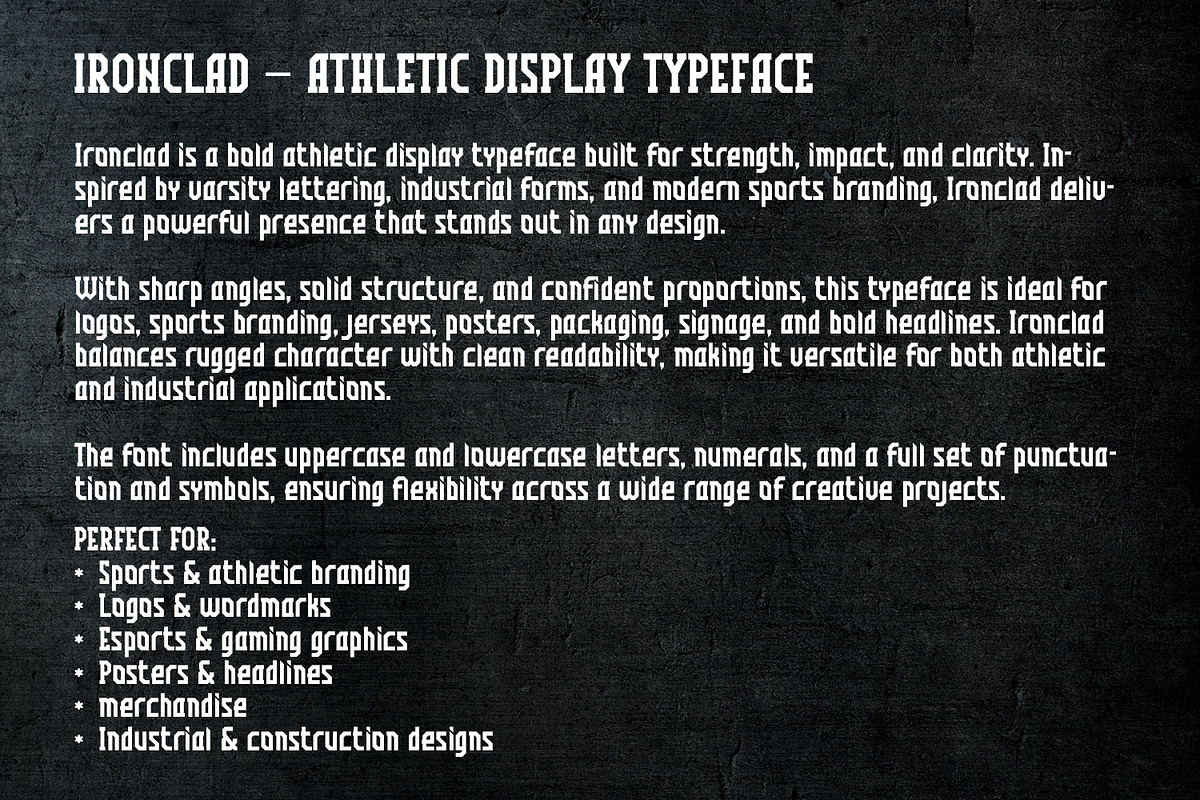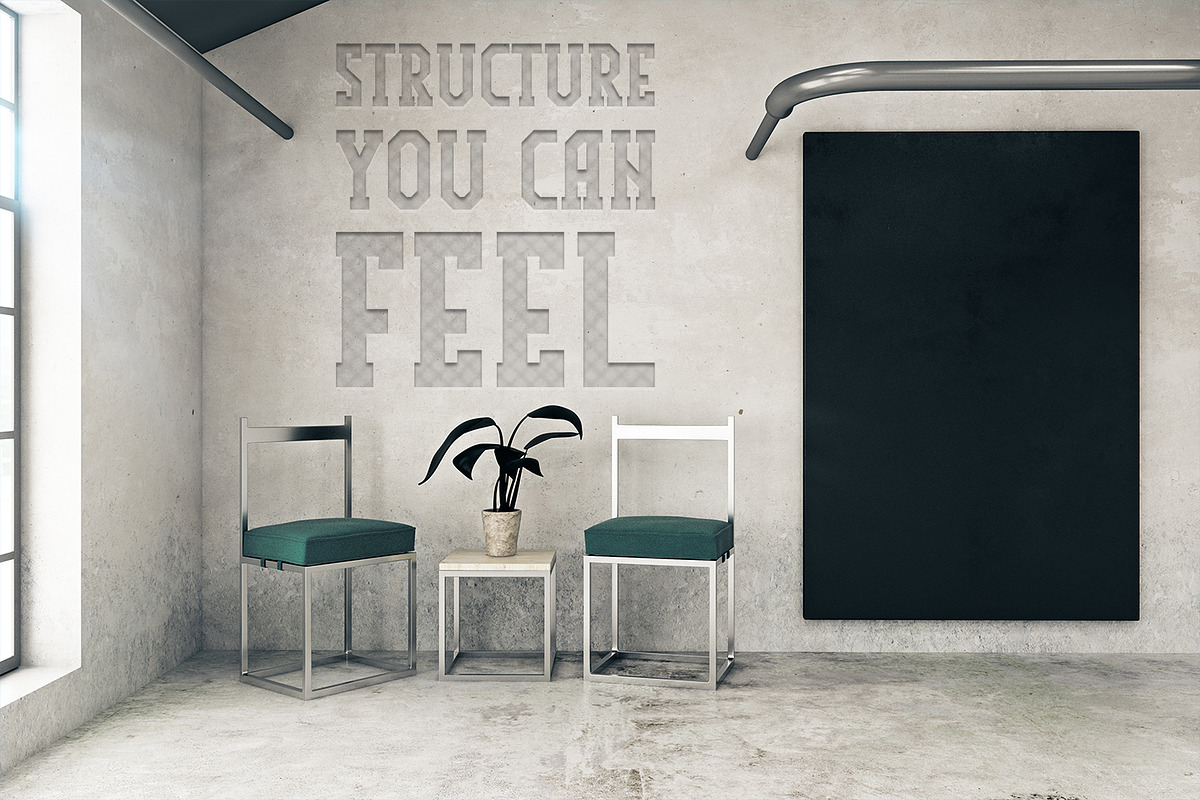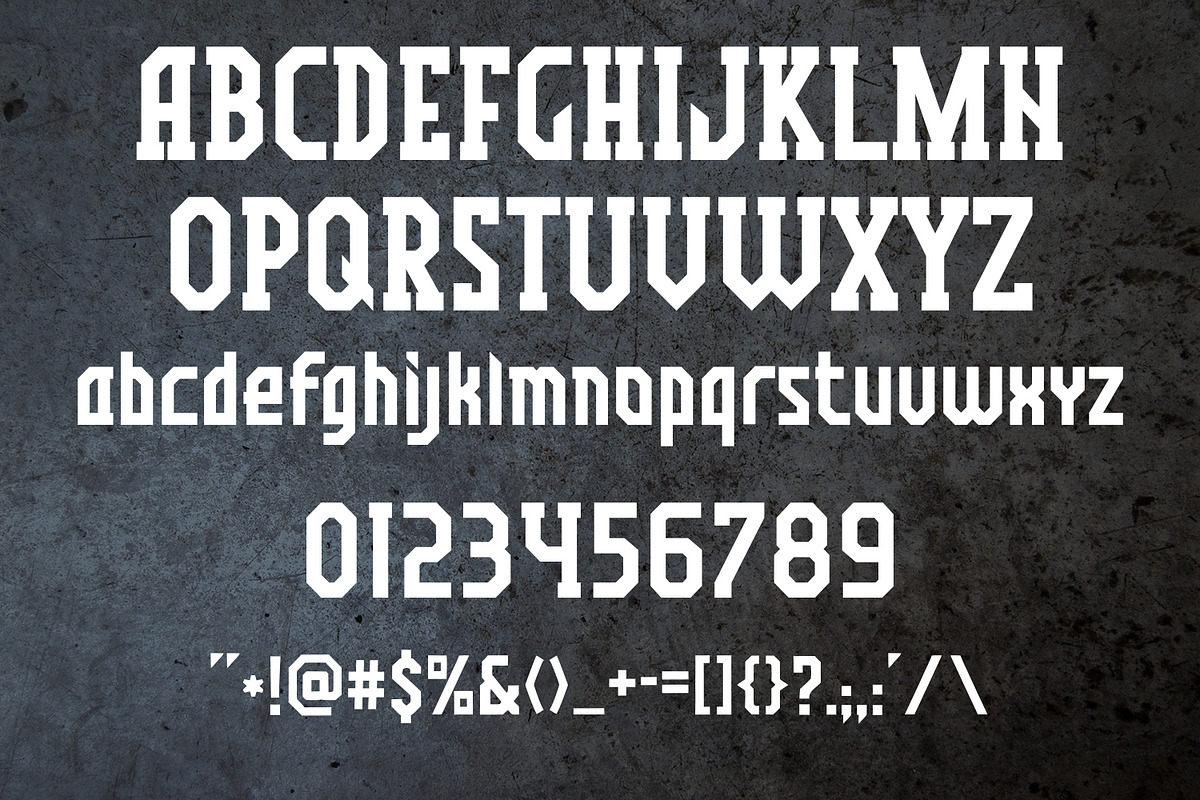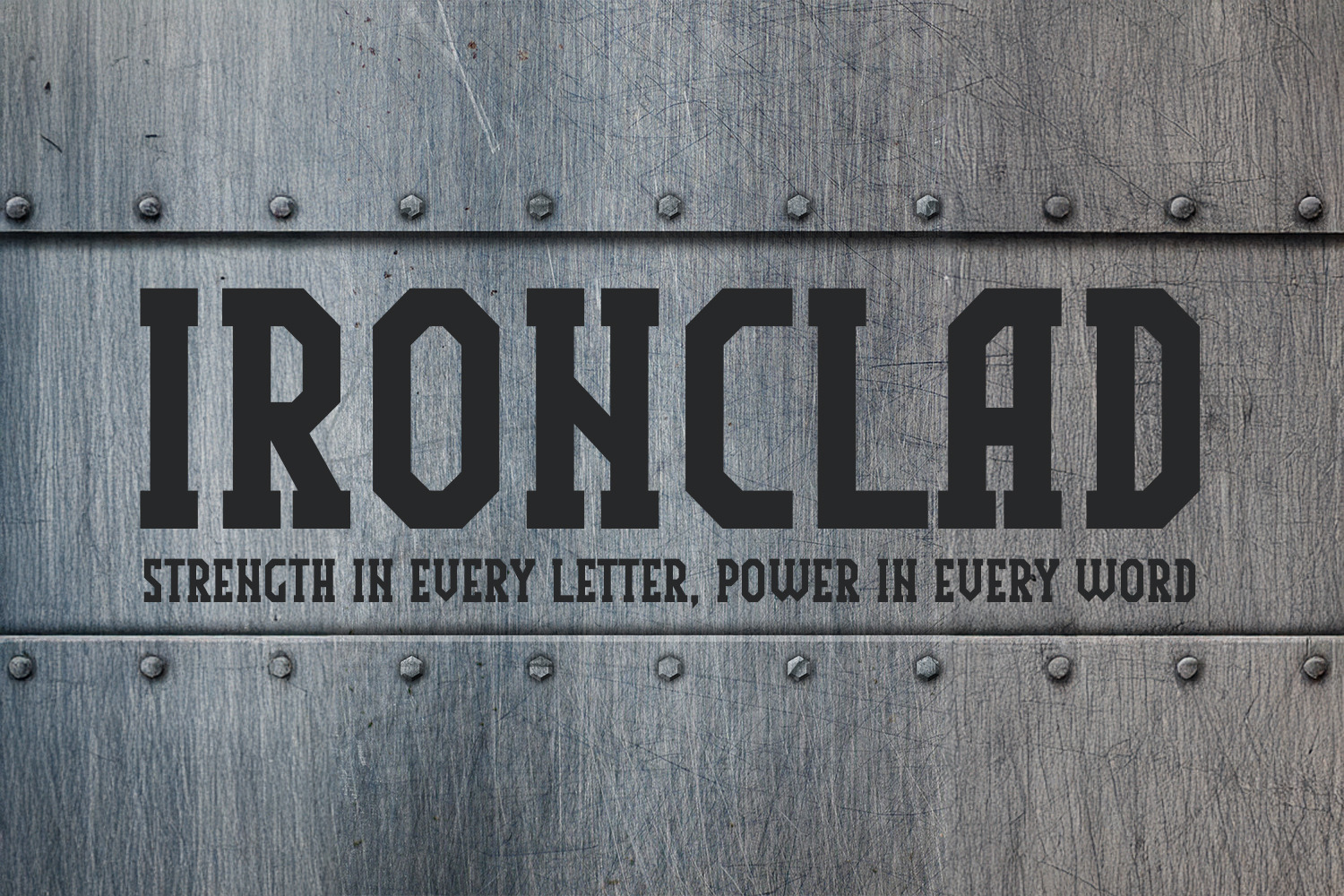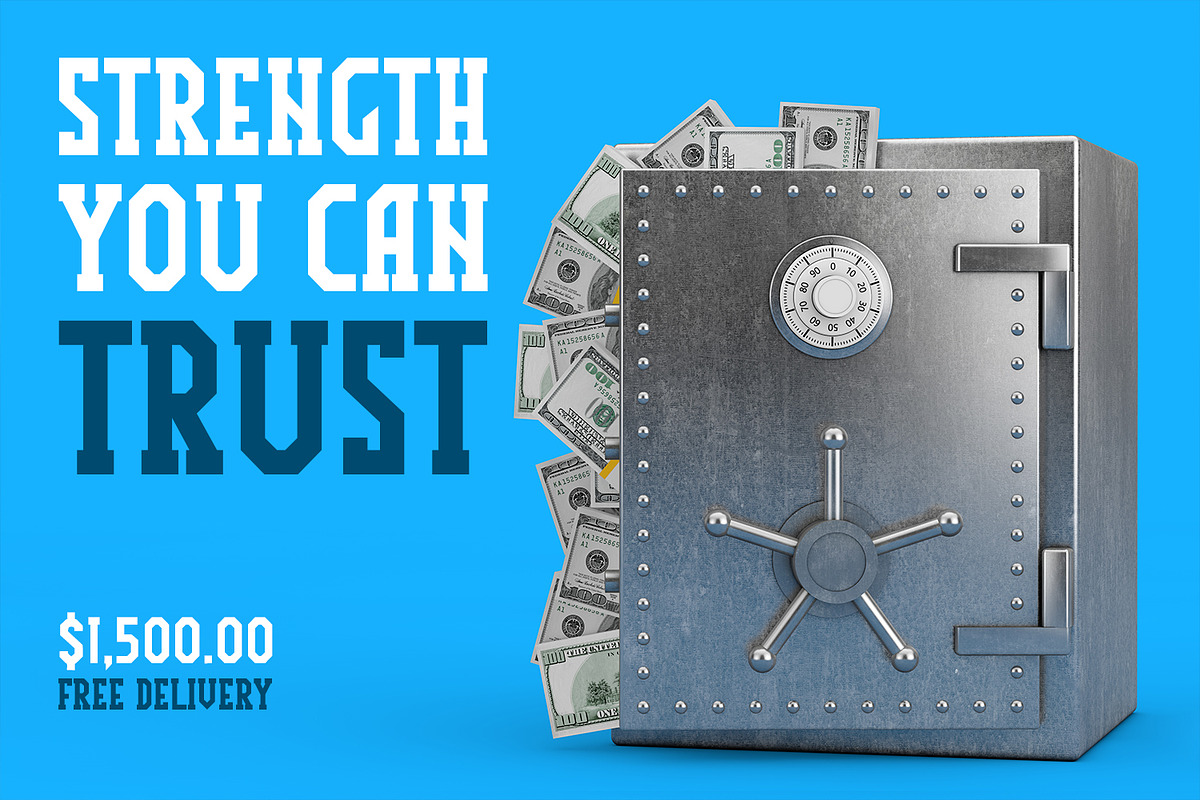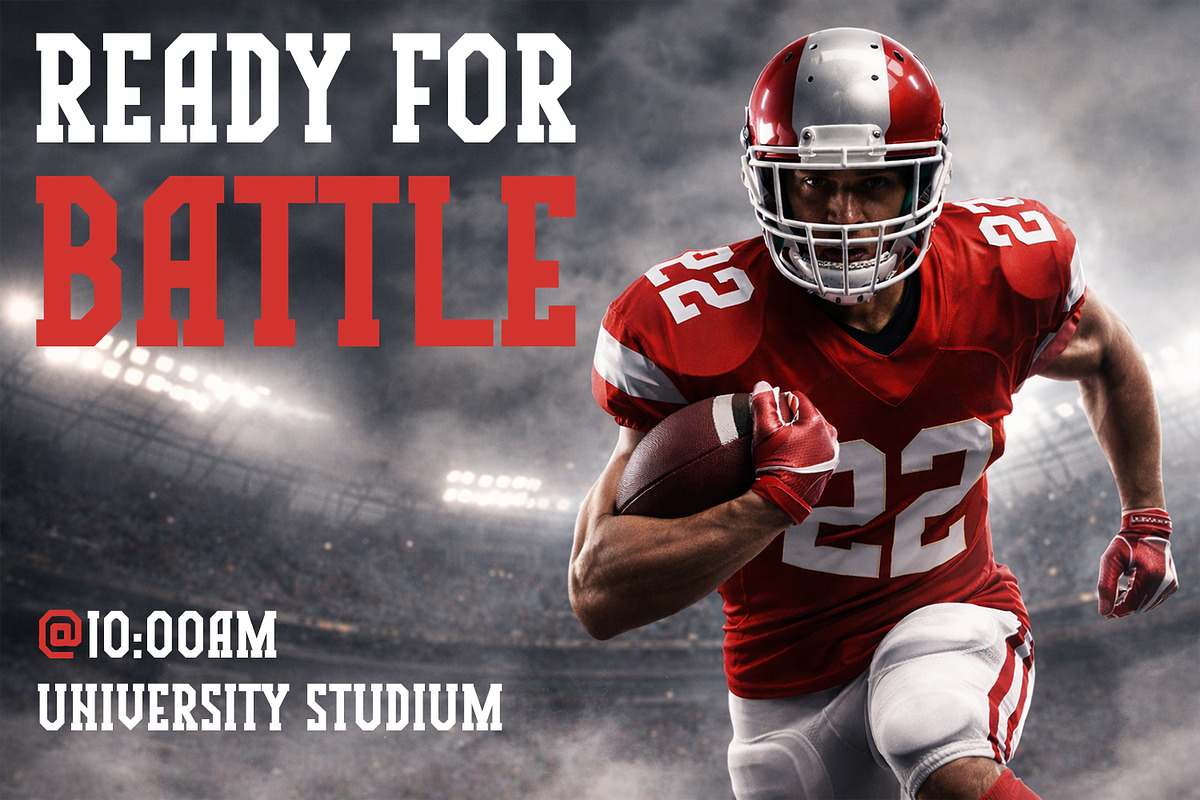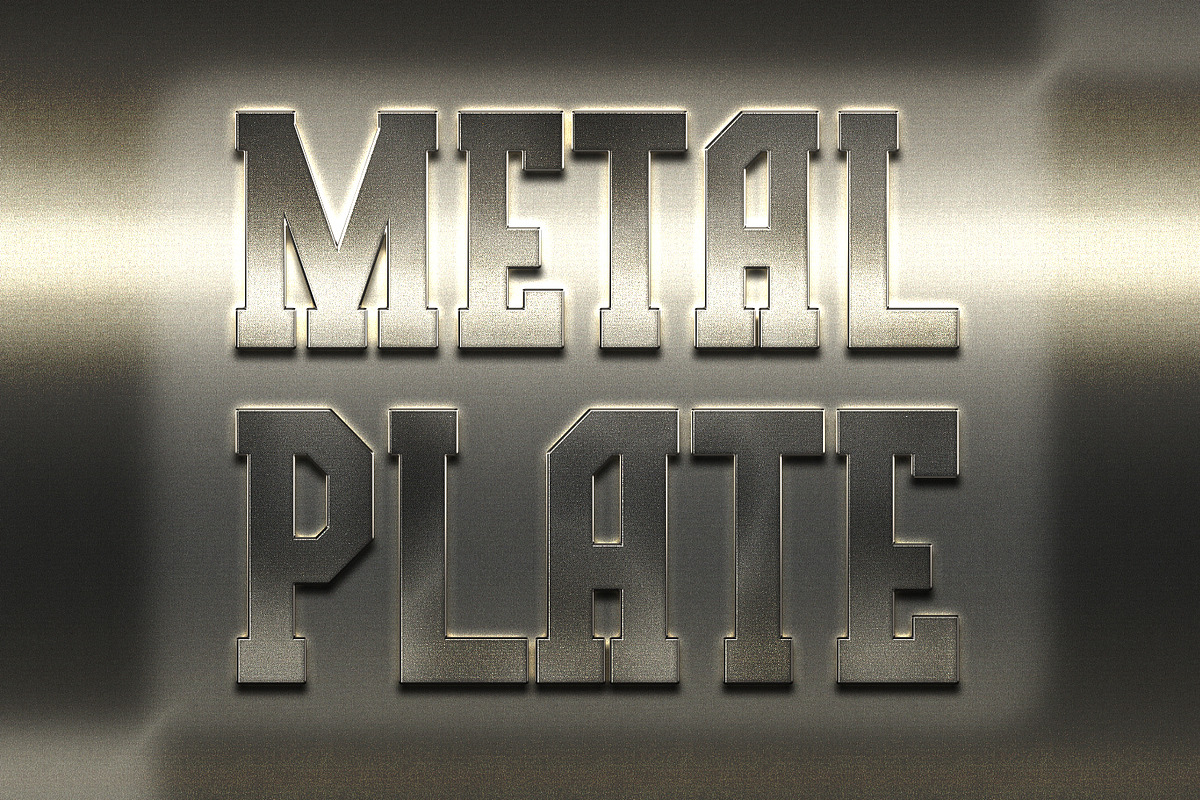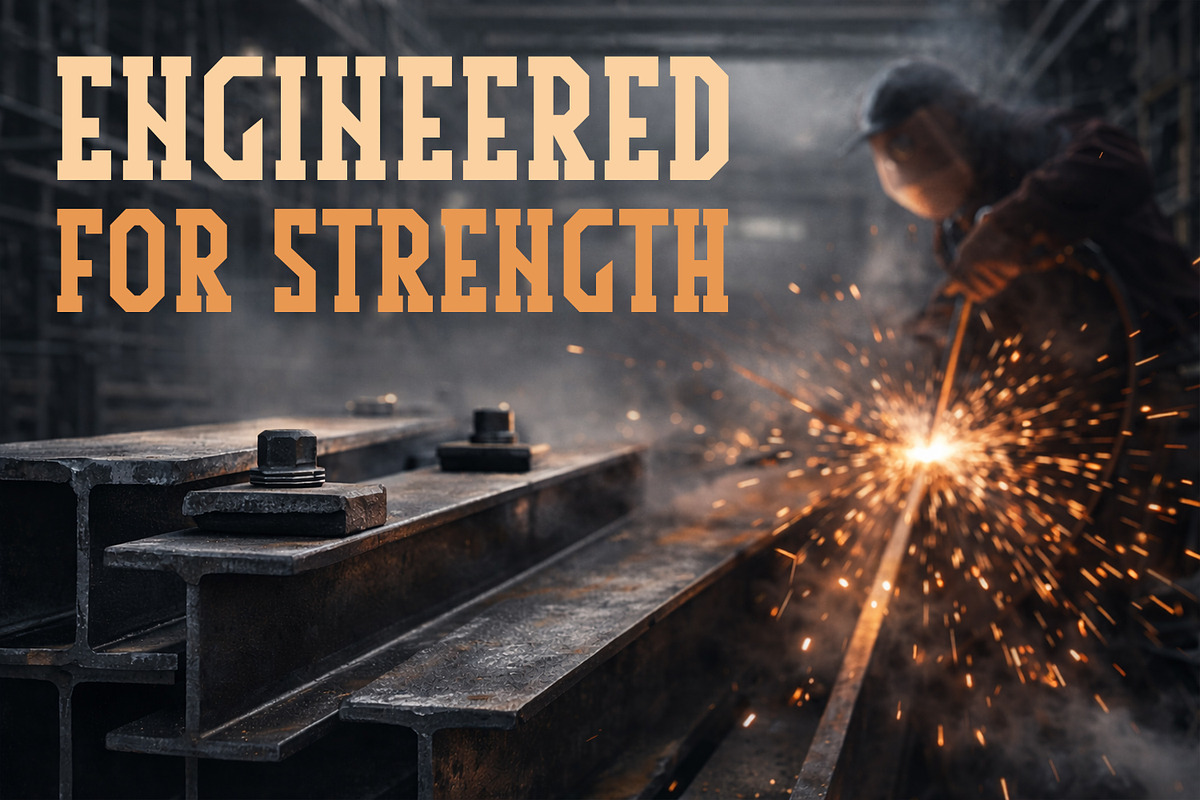
Ironclad Font
Ironclad is a bold athletic display typeface built for strength, impact, and clarity. Inspired by varsity lettering, industrial forms, and modern sports branding, Ironclad delivers a powerful presence that stands out in any design.
With sharp angles, solid structure, and confident proportions, this typeface is ideal for logos, sports branding, jerseys, posters, packaging, signage, and bold headlines. Ironclad balances rugged character with clean readability, making it versatile for both athletic and industrial applications.
The font includes uppercase and lowercase letters, numerals, and a full set of punctuation and symbols, ensuring flexibility across a wide range of creative projects.